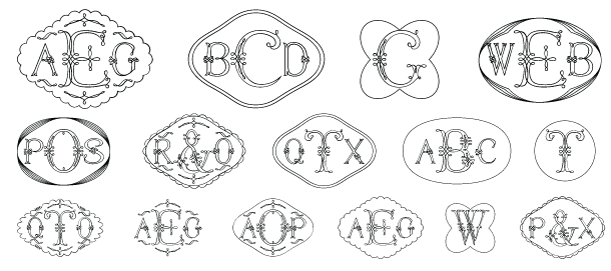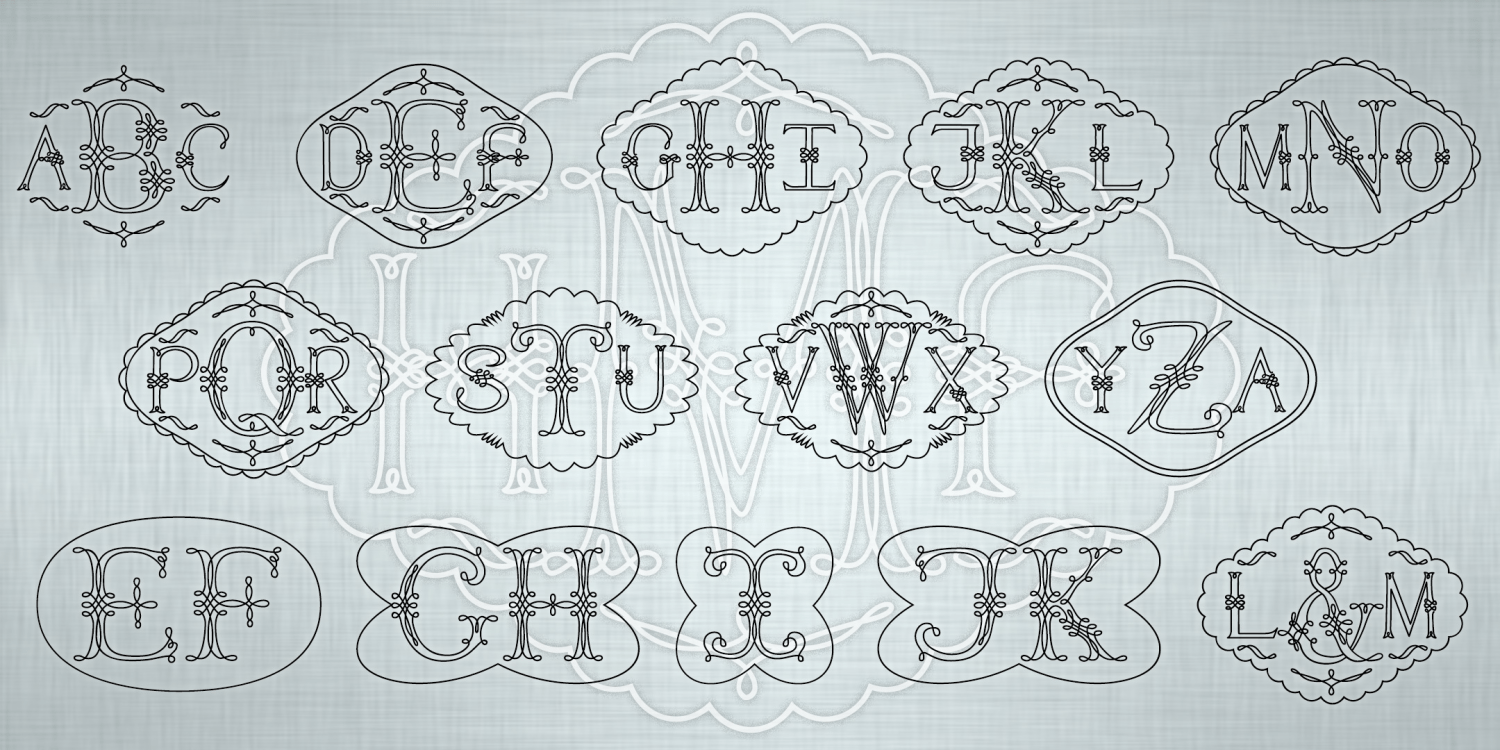
Filigree Monograms
About Filigree Monograms
FILIGREE MONOGRAMS is a unique monogram font that allows you to create custom 1-, 2-, and 3-letter monograms in a delicate filigree style with your choice of decorative frames. It was adapted from my Graceful Ghost (large letters) and Sweet Spirit (small…